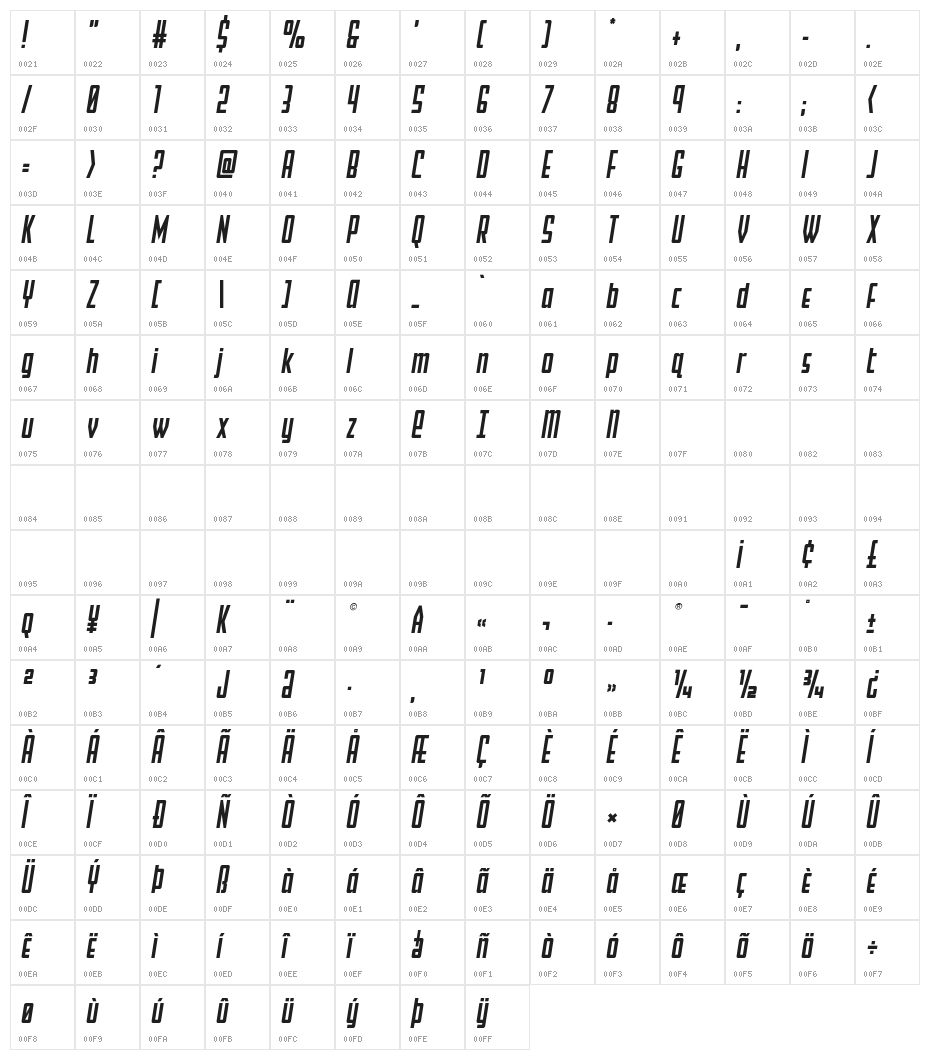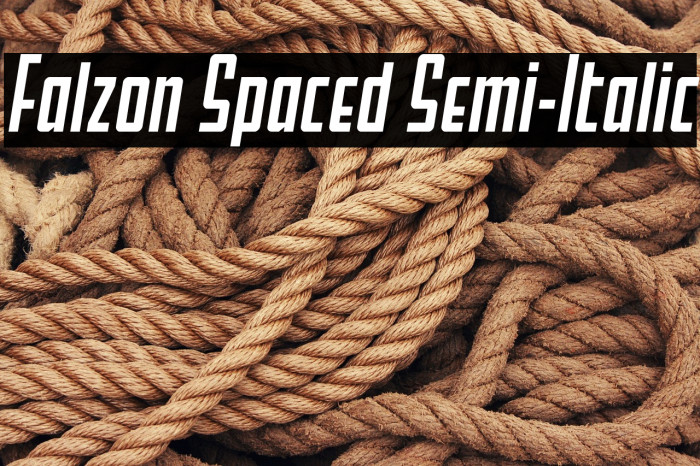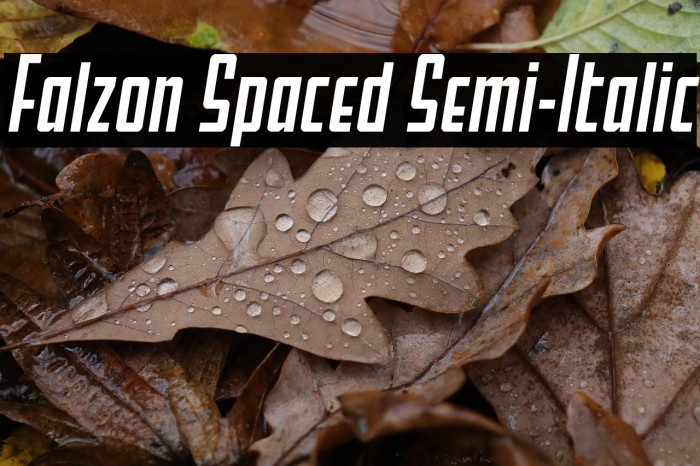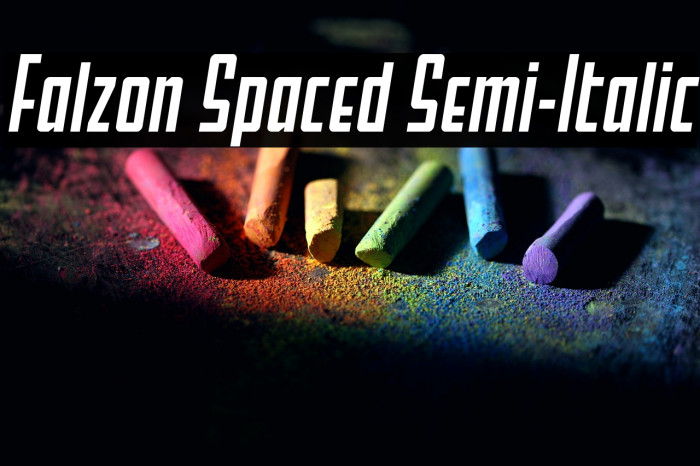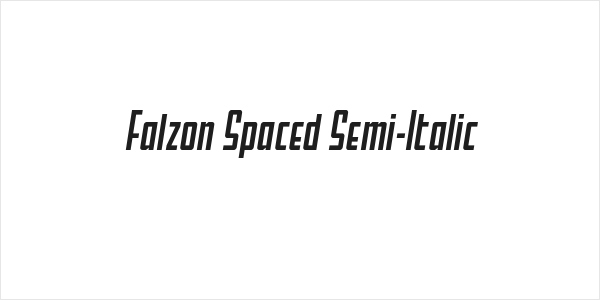
Falzon Spaced Semi-Italic Font
Falzon Spaced Semi-Italic Description
This font features a dynamic and modern design with a semi-italic slant, giving it a sense of movement and energy. The characters are slightly condensed, enhancing the sleek and streamlined appearance. The uppercase and lowercase letters maintain a consistent style, with sharp angles and clean lines that contribute to its contemporary look. The numerals and special characters are designed to match the overall aesthetic, ensuring uniformity across all text elements. The font's bold weight adds to its striking presence, making it suitable for attention-grabbing headlines and impactful designs.